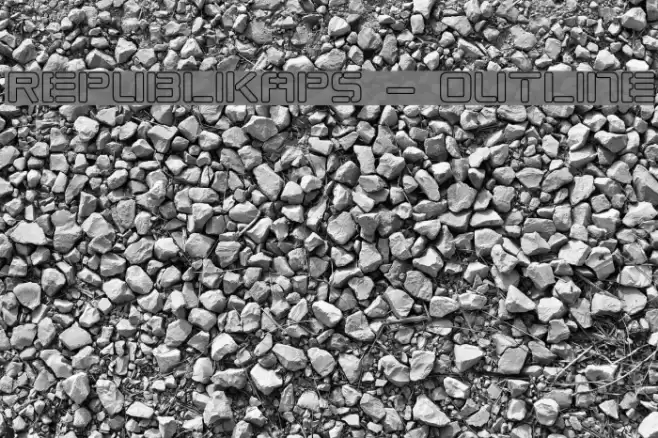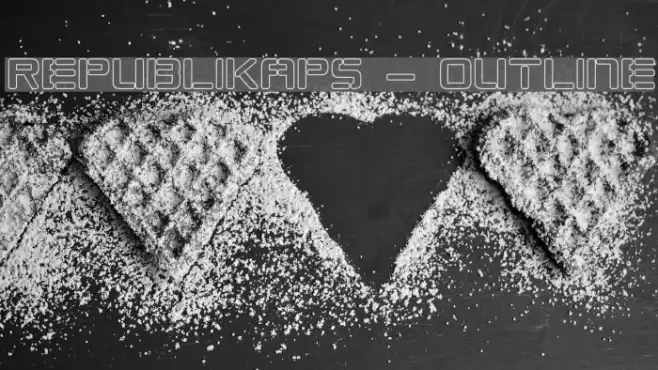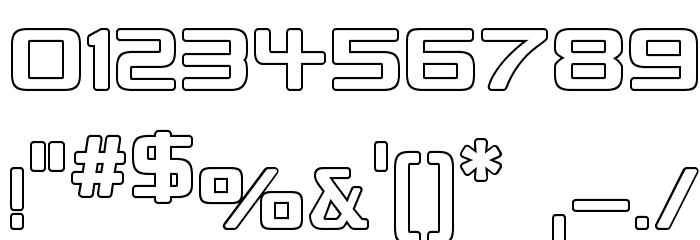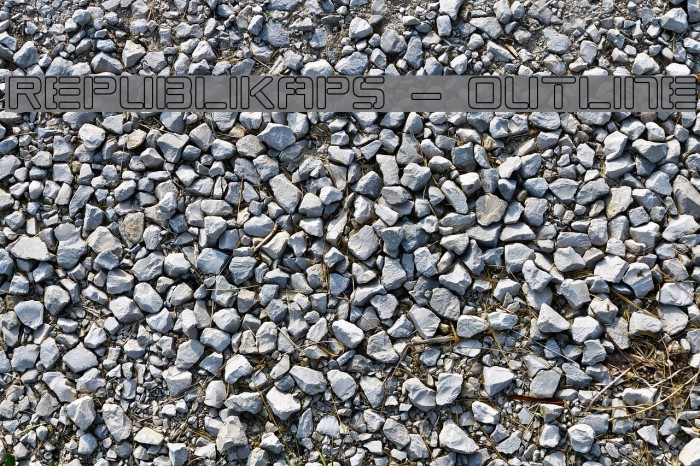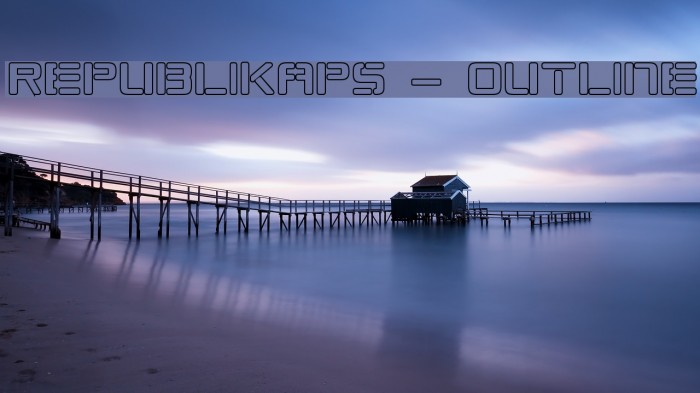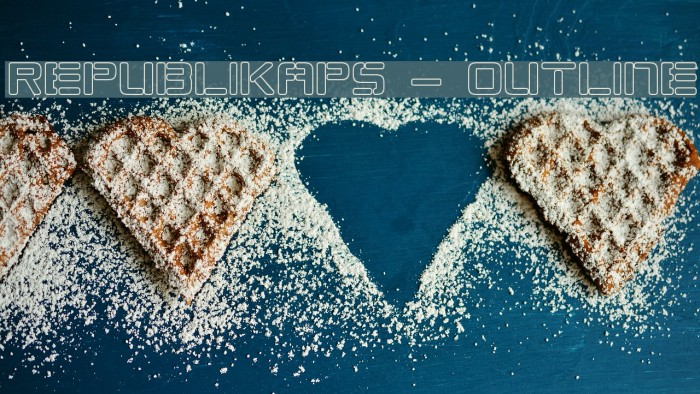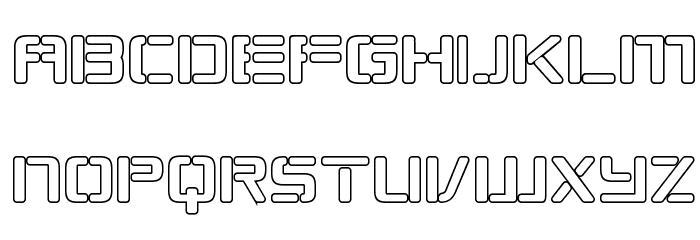
Republikaps - Outline Font
Republikaps - Outline Description
This font features a bold, geometric outline style with a modern and futuristic appearance. Each character is crafted with a consistent line thickness, creating a uniform and cohesive look. The uppercase letters are structured with sharp angles and clean lines, giving them a technical and precise feel. The lowercase letters maintain the same geometric style, ensuring readability while adding a unique touch. Numbers and special characters are designed to match the overall aesthetic, making this font versatile for various applications. The open, outlined design allows for creative use of color and background, enhancing its visual impact.
A bold, geometric outline font with a modern, futuristic style from Uncategorized fonts.
- Proposed Projects: Ideal for technology branding, futuristic posters, digital art, and innovative product packaging.